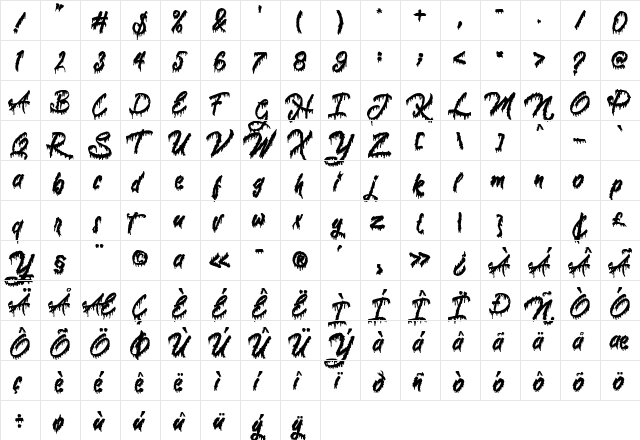
Halloween Story Regular
| Designer | Letterara 2019 |
Design Context for Halloween Story Typeface
Halloween Story is a composed and adaptable typeface that performs quietly and consistently across a wide range of design contexts.